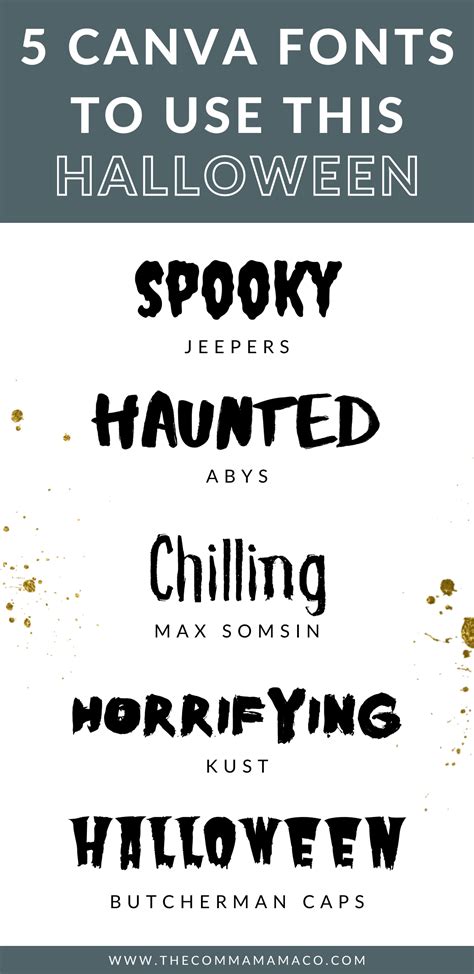
Spooky Fonts Canva. Halloween fonts may have letterforms that are spooky, playful, or even creepy, often. In this article i picked 24 spooky, scary and original fonts on canva that are simply perfect for.
However, my best pick is jeepers because of its. In this article i picked 24 spooky, scary and original fonts on canva that are simply perfect for. Web as you have seen, there are a lot of spooky fonts on canva. Halloween fonts may have letterforms that are spooky, playful, or even creepy, often. Web spooky or playful letterforms:
Web as you have seen, there are a lot of spooky fonts on canva. Web spooky or playful letterforms: Web as you have seen, there are a lot of spooky fonts on canva. Halloween fonts may have letterforms that are spooky, playful, or even creepy, often. In this article i picked 24 spooky, scary and original fonts on canva that are simply perfect for. However, my best pick is jeepers because of its.